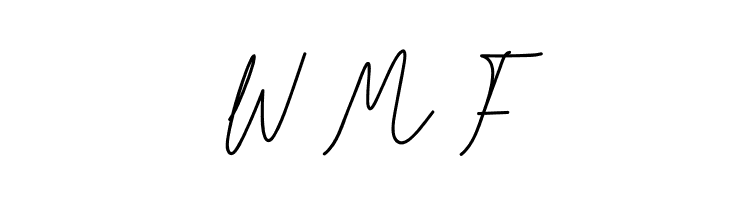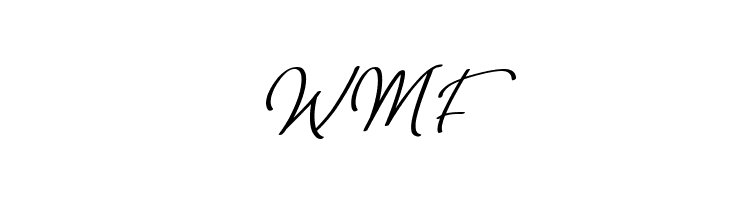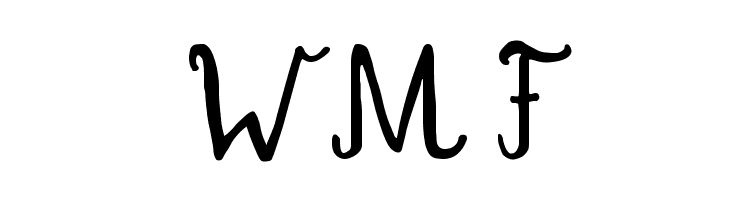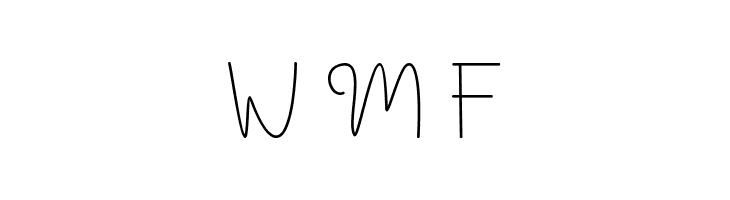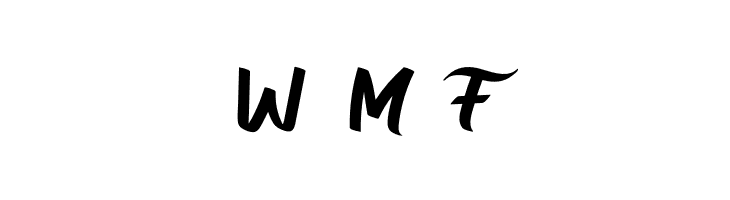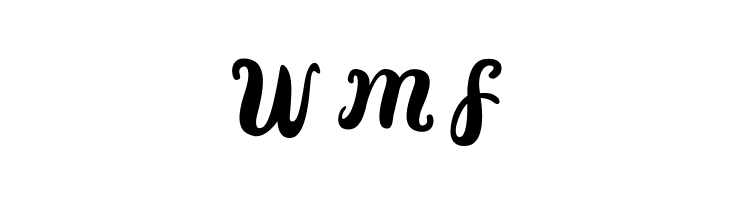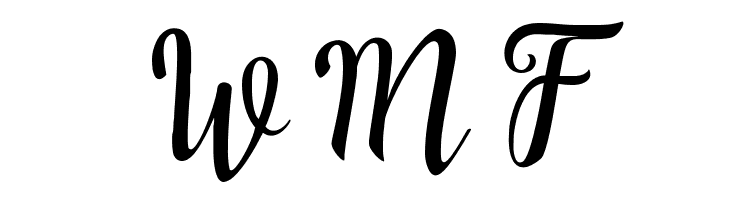
A fluid, cursive script font with elegant, handwritten characteristics.
A bold, expressive script font with a dynamic handwritten style.
A lively and energetic script font with bold, flowing strokes and playful curves.
A dynamic and elegant script font with flowing, connected letterforms.
A decorative script font with elegant, flowing cursive letters and intricate swashes.
An elegant script font with flowing, interconnected letters and a sophisticated style.
A lively and elegant script font with flowing, cursive letterforms and whimsical charm.
A graceful script font with flowing, connected strokes and balanced contrast.
A modern, cursive script font with elegant, flowing lines and a personal touch.
A lively and flowing script font with smooth, continuous strokes.
A flowing script font with elegant, connected strokes and a handwritten feel.
A playful and elegant script font with flowing, cursive letterforms.
A graceful script font with flowing, interconnected letters and elegant curves.
A playful script font with fluid, continuous strokes and a whimsical charm.
A fluid and elegant script font with a handwritten appearance.
A flowing, cursive script font with elegant, connected letters.
A bold, dynamic script font with fluid, connected letterforms.
A flowing, cursive script font with an elegant, signature-like style.
A bold, playful script font with dynamic, flowing characters.
A lively and energetic script font with fluid strokes and a hand-drawn aesthetic.
A lively script font with fluid, connected strokes and a handwritten feel.
An elegant, flowing script font with intricate loops and a dynamic italic style.
A sophisticated script font with flowing, decorative curves.
A bold, lively script font with fluid, natural handwriting style.
A bold, expressive script font with flowing, cursive letterforms.
A bold and expressive script font with fluid, cursive strokes and dynamic flow.
A minimalistic and elegant script font with a modern touch.
A whimsical, cursive script font with elegant, flowing strokes.
A charming, flowing script font with smooth, continuous strokes and elegant curves.
A bold, dynamic script font with high contrast and decorative flourishes.
A lively and expressive script font with elegant loops and flourishes.
A bold, flowing script font with dynamic, connected characters.